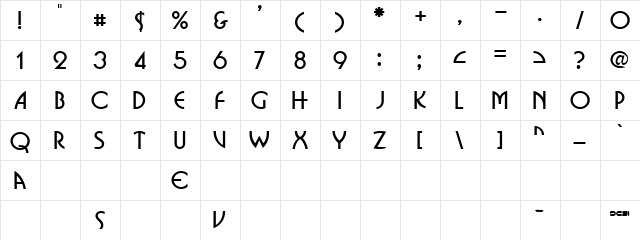
FFX Buster Regular
Design Context for FFX Buster Typeface
FFX Buster takes a measured approach to typography — its balanced proportions and neutral character make it a reliable workhorse for both digital and print work.